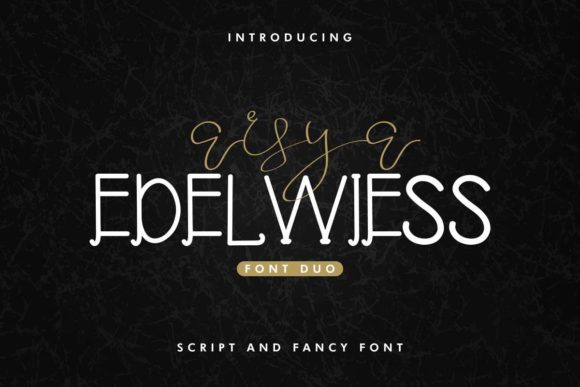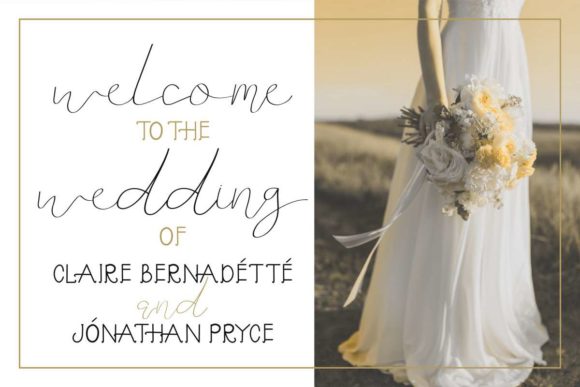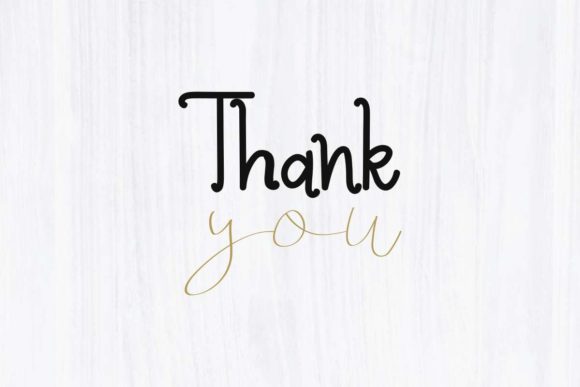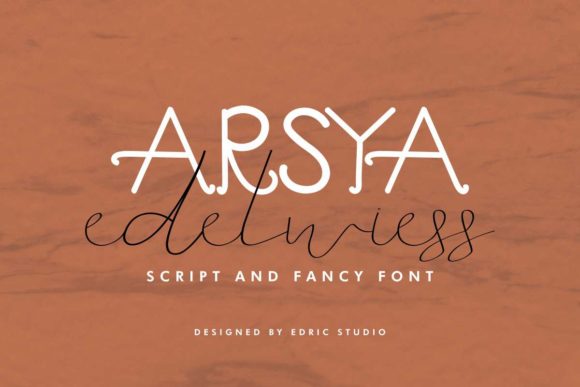
About Arsya Edelwiess Duo Font
Arsya Edelwiess duo is a match made in heaven, the simplicity of the sans serif perfectly complements the script’s style. Combining these two fonts on your next design will give your next design a unique and elegant feel.
This versatility means that this font can be used in a wide variety of applications from headlines, to branding – the only limit is your imagination!